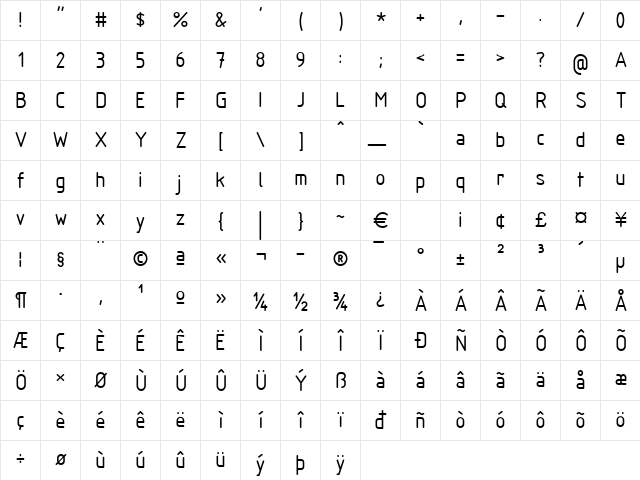
ISOCPEUR Regular
Design Context for ISOCPEUR Typeface
ISOCPEUR is a composed and adaptable typeface that performs quietly and consistently across a wide range of design contexts.